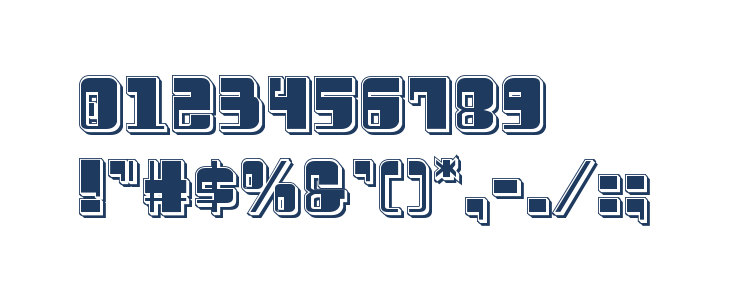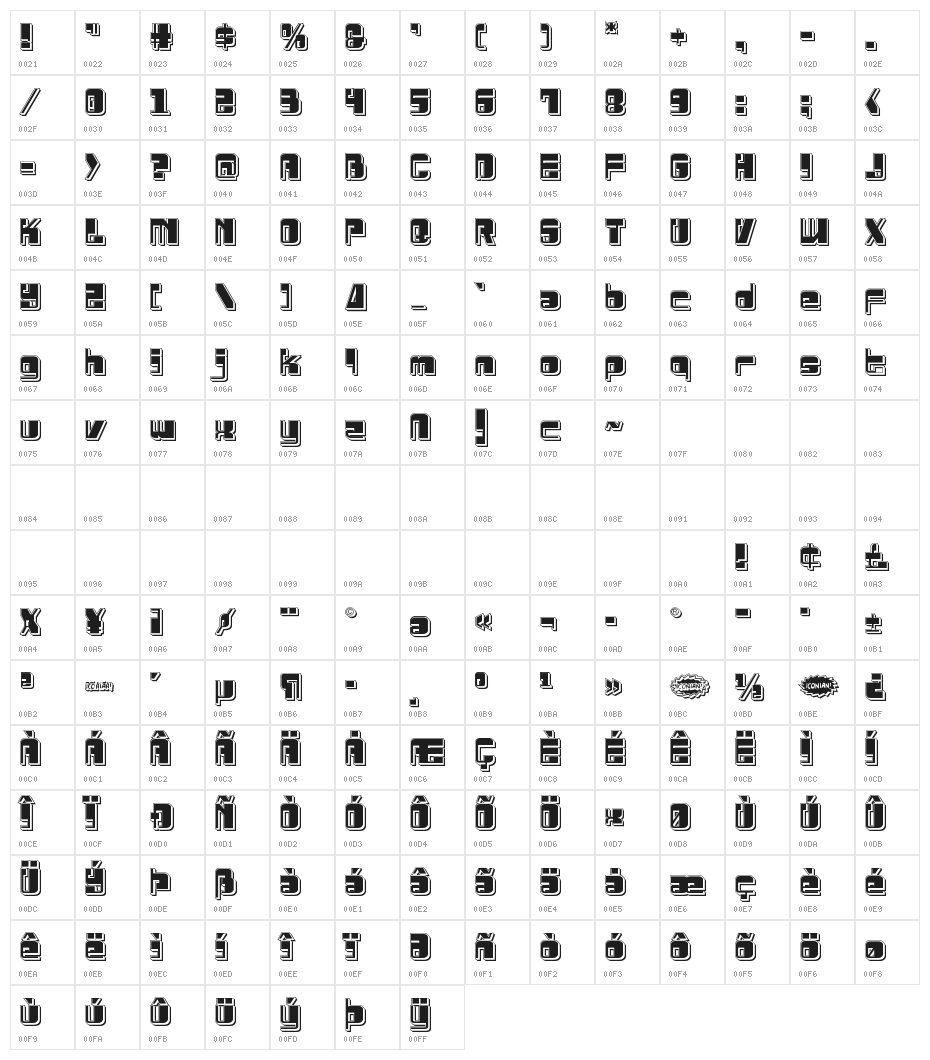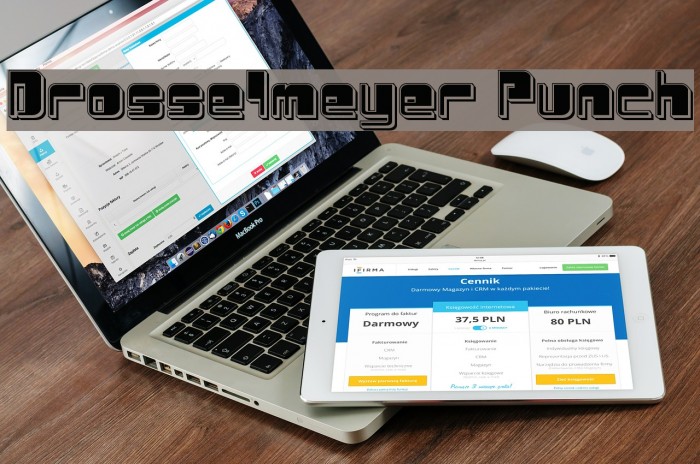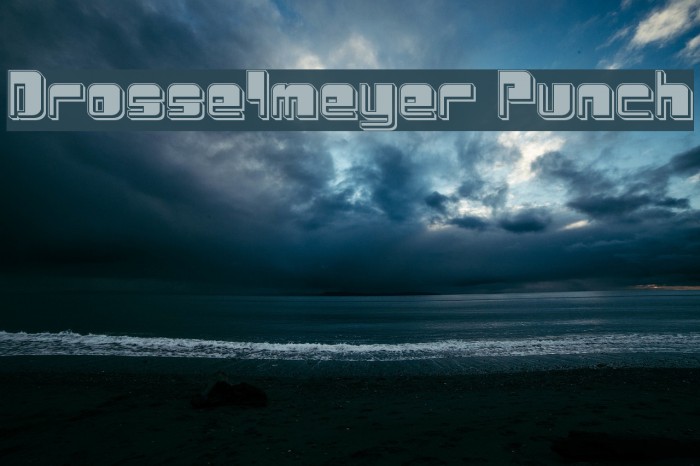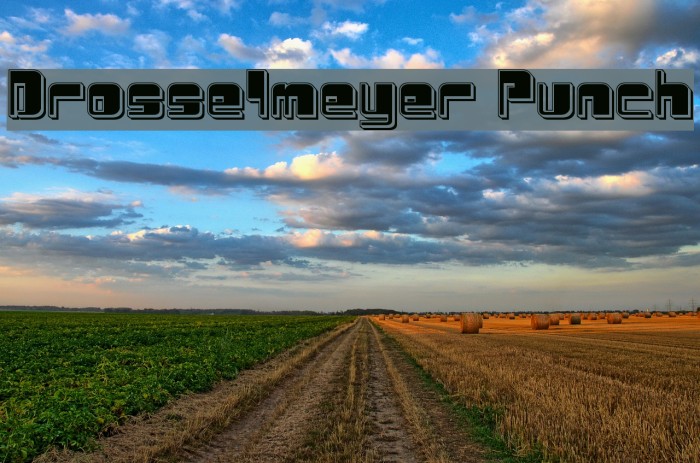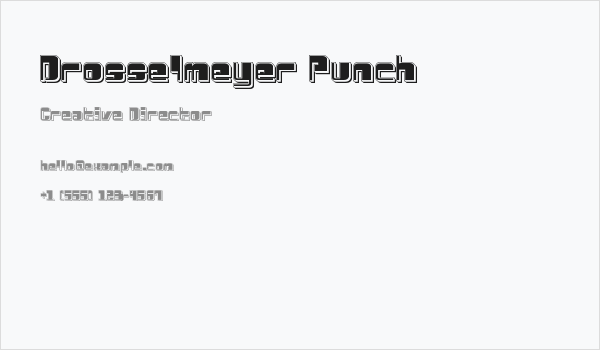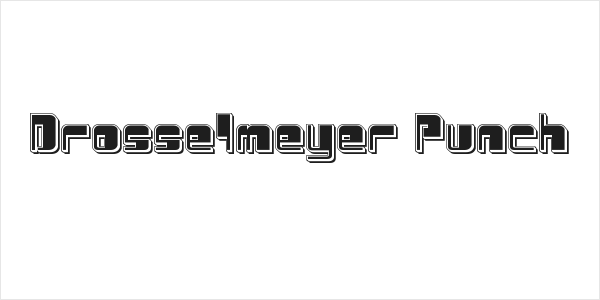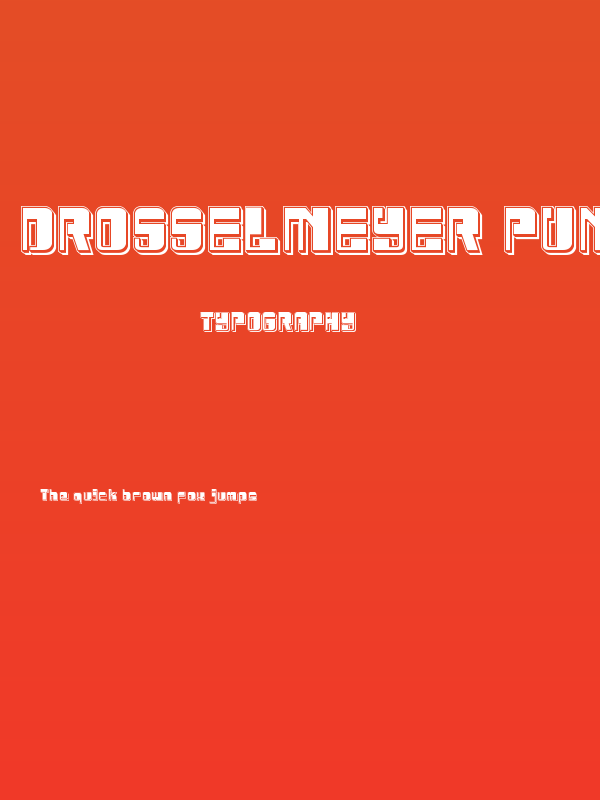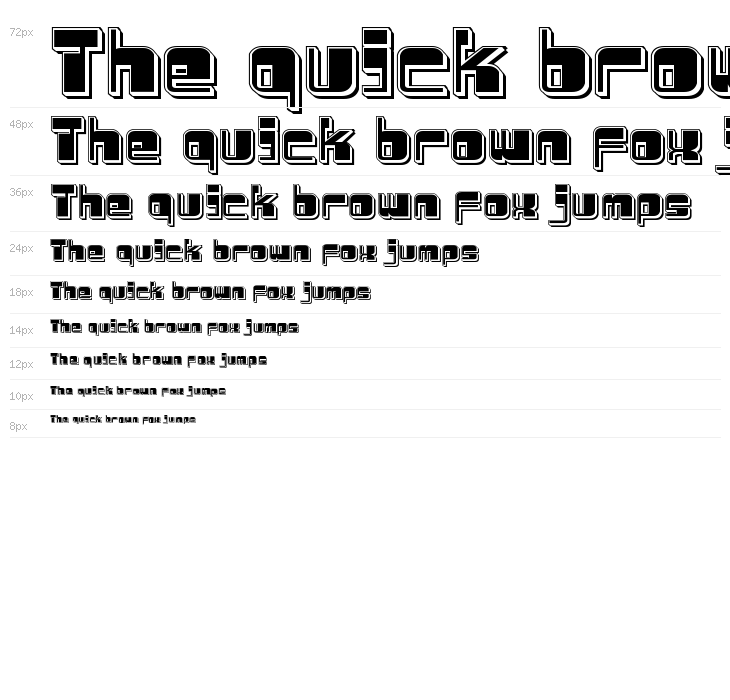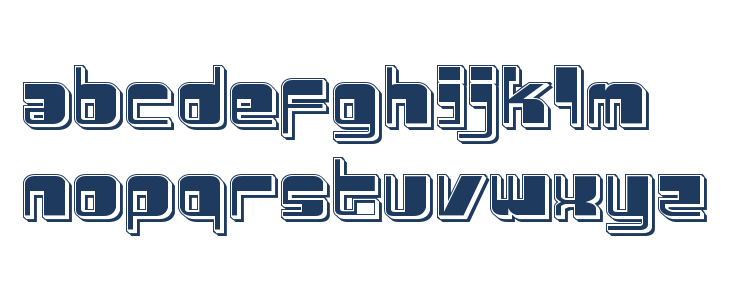
Drosselmeyer Punch Font
Drosselmeyer Punch Description
This font features a bold, geometric design with a distinct three-dimensional effect. Each character is outlined with a thick border, creating a shadow-like appearance that adds depth and visual interest. The uppercase and lowercase letters maintain a consistent style, with angular edges and a blocky structure. Numbers and special characters are designed to match the bold and dynamic aesthetic, making them stand out prominently. The overall look is modern and eye-catching, suitable for projects that require a strong visual impact.